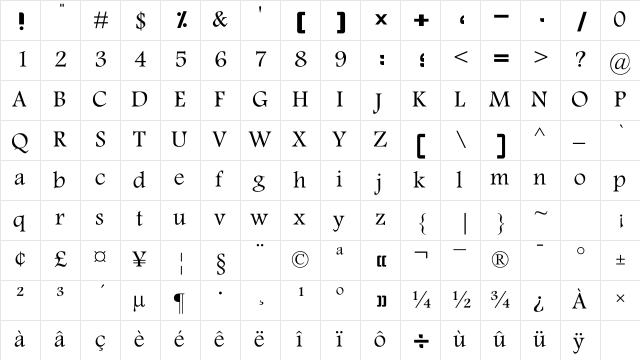
Design Context for K Sina Typeface
K Sina offers clean, dependable letterforms without strong stylistic allegiance, making it a practical choice for designers who need flexibility.